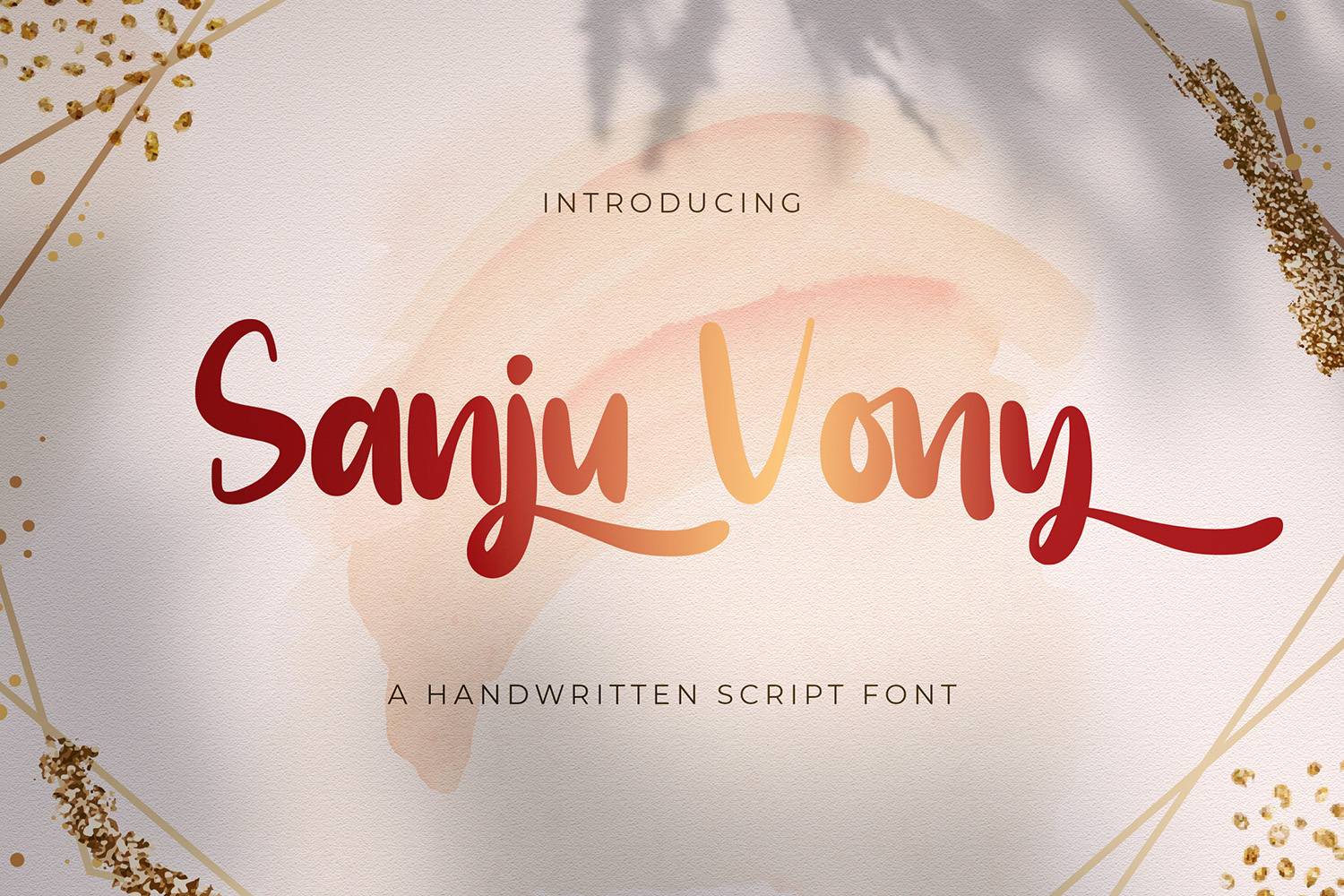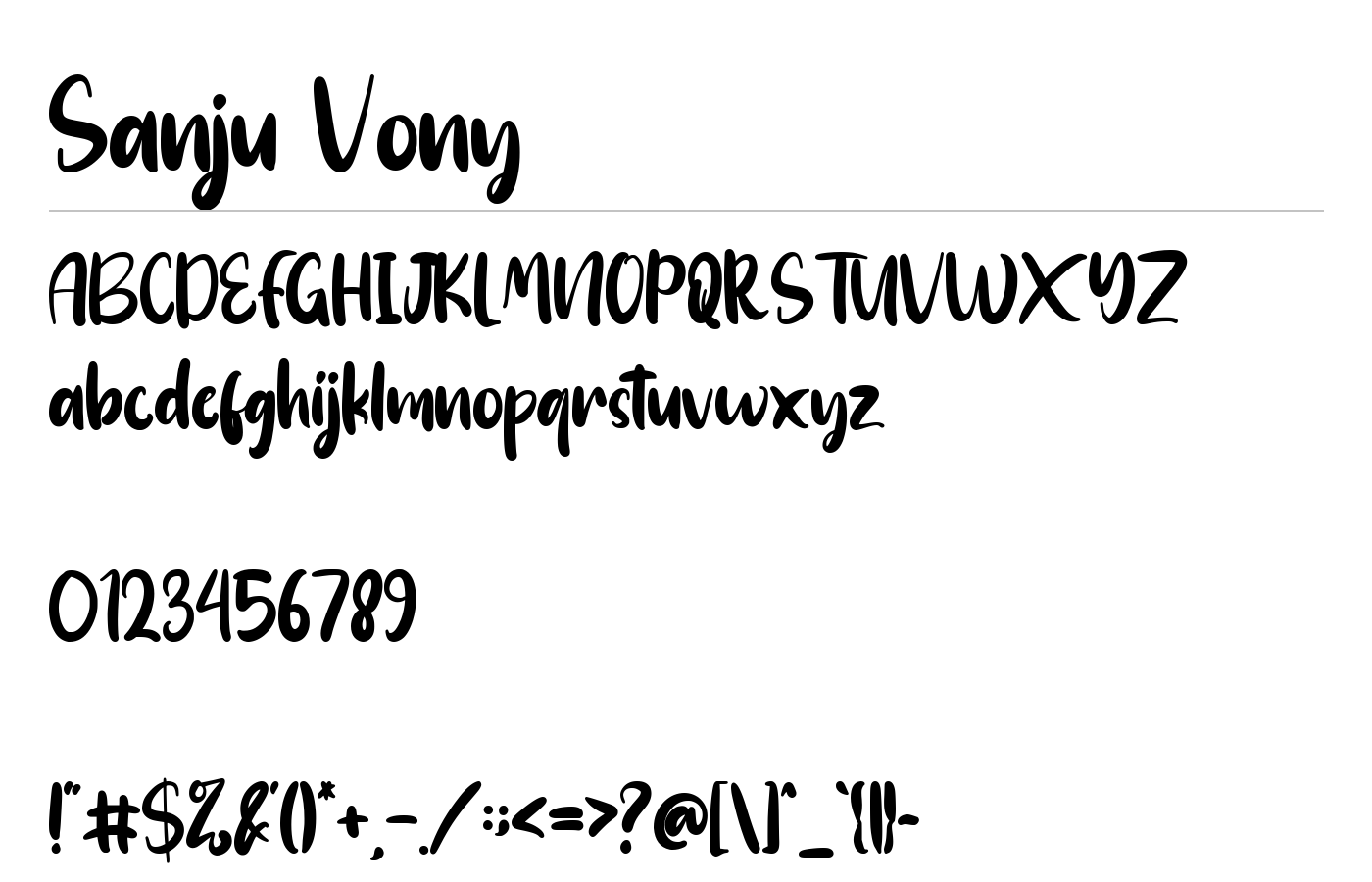
Sanju Vony is a playful and casual script font with a lively, hand-drawn feel. Its rounded, slightly bold strokes and large x-height create an approachable and friendly appearance, making it ideal for informal, creative projects like invitations, branding, and social media graphics. This font’s quirky letterforms add personality and charm, perfect for designs that want to convey warmth and creativity.
Sanju Vony Font
About Sanju Vony Font